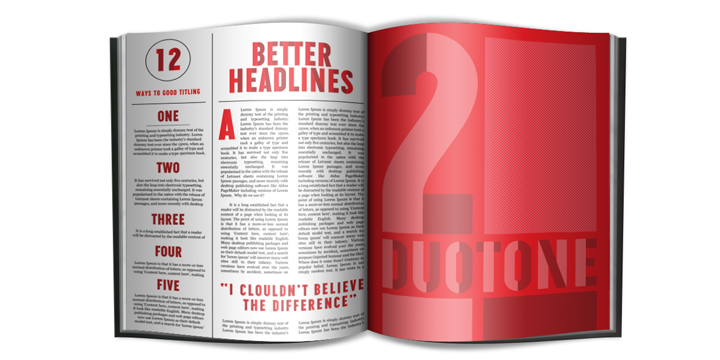
Duotone Font is perfect for modern graphic design, music album covers, artistic posters, creative agency branding, digital art projects, photography portfolios, contemporary magazines, visual identity systems, experimental typography, social media graphics, and avant-garde advertising campaigns.
Duotone Font is exciting because it embodies the bold contrast and visual impact of contemporary graphic design with its striking dual-tone aesthetic that creates depth and dimension. Its innovative character design captures the essence of modern visual culture while pushing the boundaries of traditional typography, making it perfect for projects that demand attention and creative distinction.
Duotone Font family includes light, regular, medium, bold, and black weights, each with corresponding italic versions. The font family also features stylistic alternates, creative ligatures, artistic symbols, and experimental character variations that enhance its versatility for cutting-edge design applications.
This visually striking typeface represents the perfect fusion of artistic innovation and functional design. Duotone Font Free Download enables designers to explore its creative possibilities before making a commercial commitment. The font's ability to create visual impact makes it ideal for brands seeking to establish a bold, contemporary presence in competitive creative markets.
Whether you're developing artistic brand identities, creating experimental graphic designs, or designing contemporary marketing materials, Duotone Font delivers exceptional visual drama and creative appeal. Its bold character and innovative structure ensure maximum impact while maintaining readability across various design applications.
The font's versatility shines in creative environments where visual innovation and artistic expression are paramount. Its striking appearance makes it particularly effective for music industry branding, art galleries, design studios, and creative agencies seeking to showcase their innovative capabilities.
For designers working on projects requiring bold visual impact and creative distinction, Duotone Font offers an exceptional solution. Its artistic character and comprehensive design features provide the creative tools needed for cutting-edge visual communications, while its contemporary aesthetic ensures your projects remain relevant and engaging in today's dynamic creative landscape.